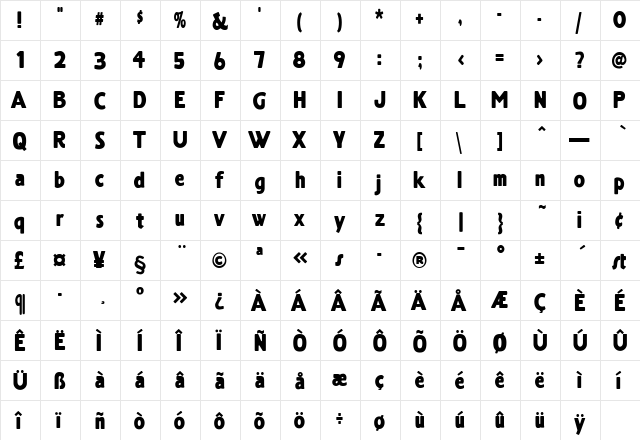
AIOzPoster Condensed Font Preview
AIOzPoster Condensed
AIOzPoster Condensed Font Details
| Style | Condensed |
| Foundry | Copr. Alphabets, Inc |
| Copyright | Copr.1992 Alphabets, Inc. / R. McCamant |
Design Context for AIOzPoster Typeface
AIOzPoster is a composed and adaptable typeface that performs quietly and consistently across a wide range of design contexts. The condensed width makes it efficient for tight spaces without sacrificing legibility.